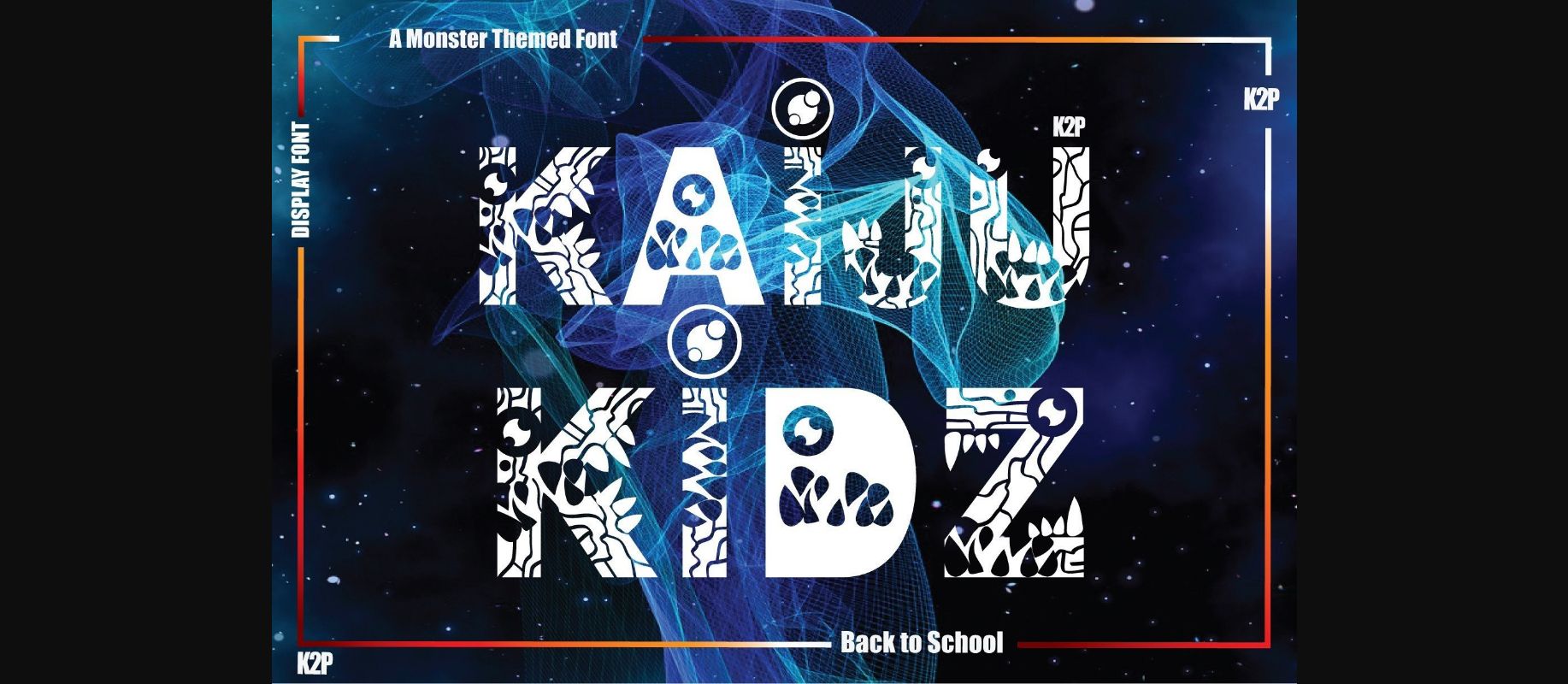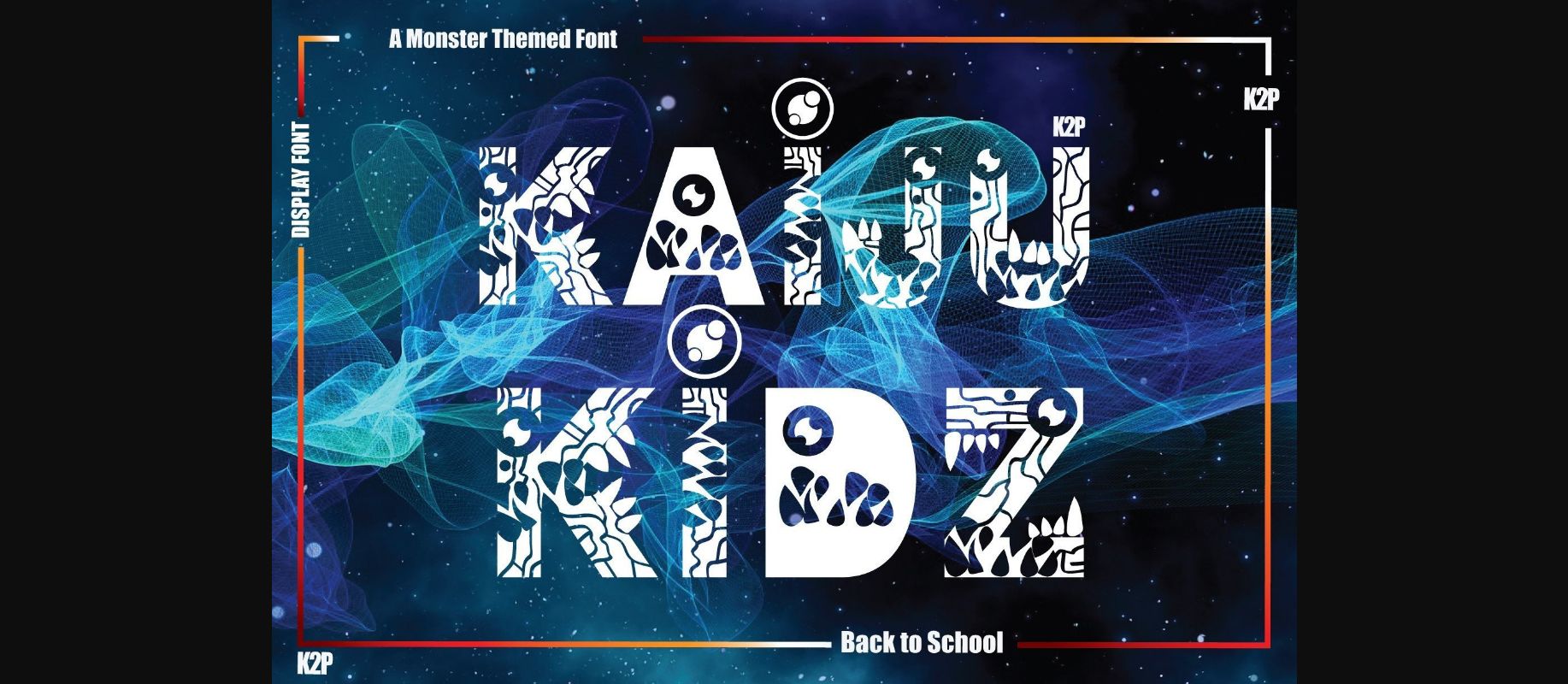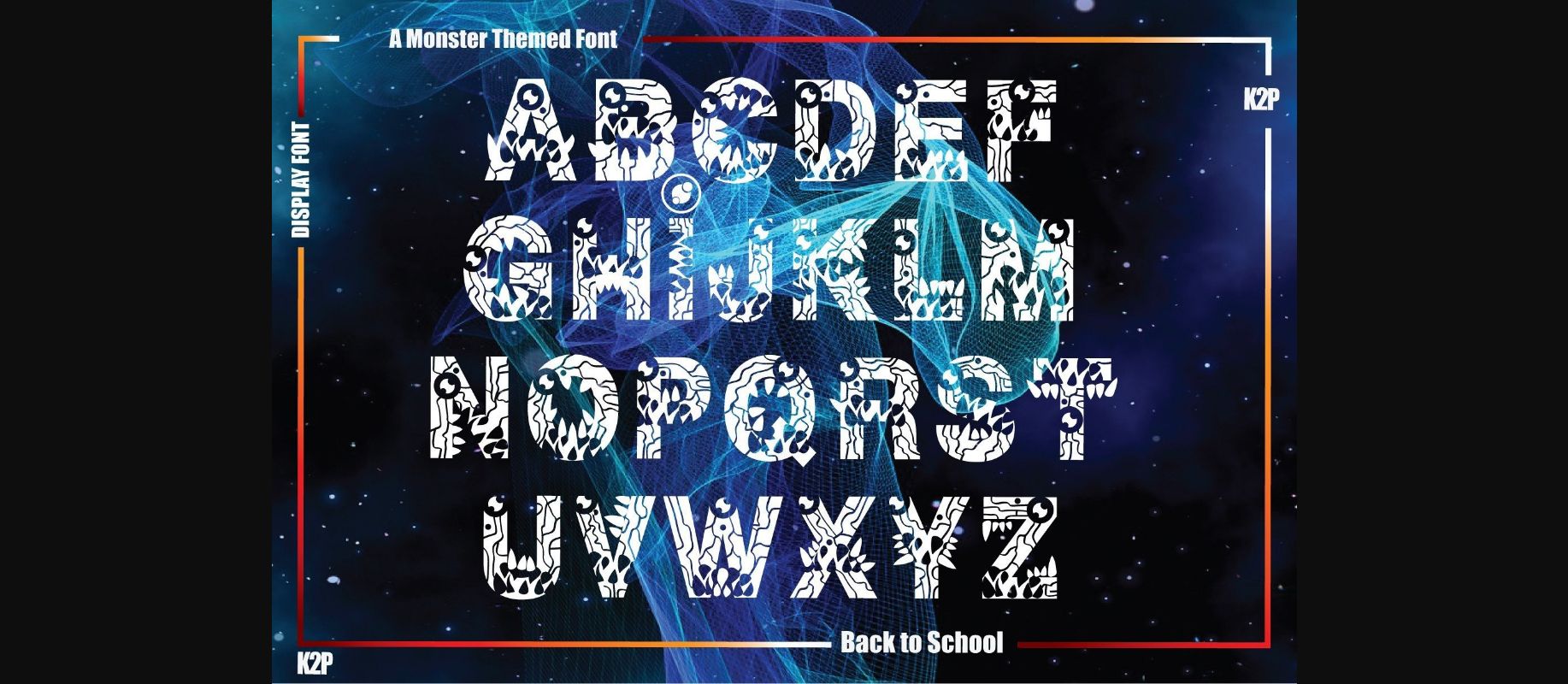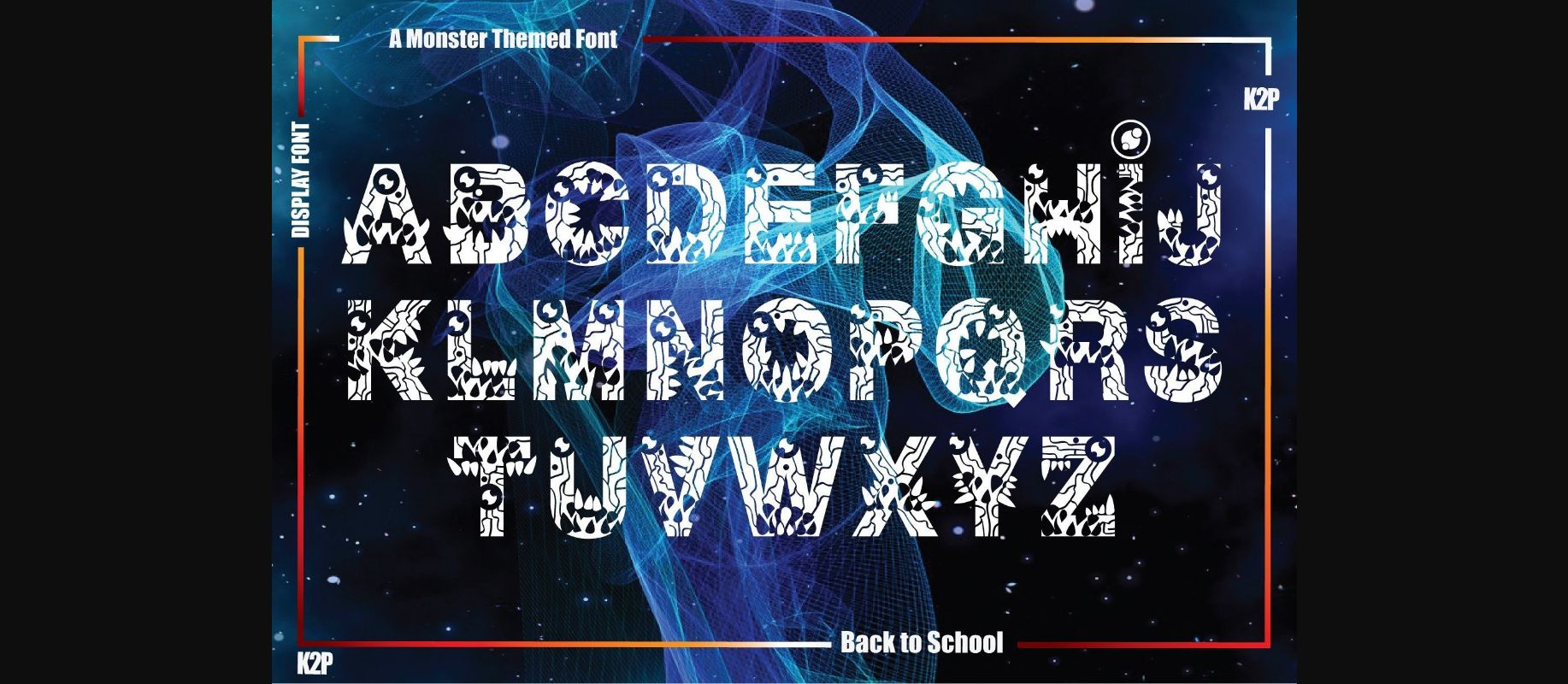
About Kaiju Kidz Font
Kaiju Kidz is a bold and incredibly cool decorative font. It can be used for various design ideas, particularly those related to children, cartoons, and games. Have fun with this beautiful font and explore its endless variations!